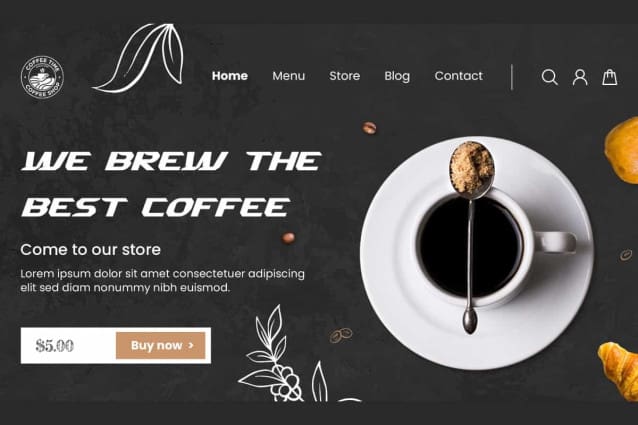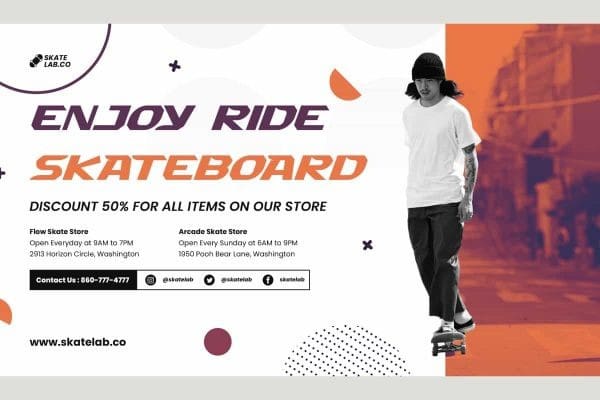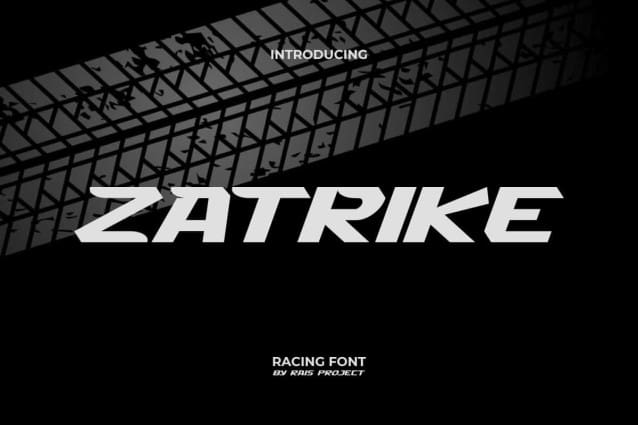
Zatrike Font
Zatrike Font is an impressive cool racing display font with a modern look. This font has bold characters that make it look awesome. It will be good for any designs, such as stationery, advertisement, brand image, marketing material, cover, custom design, invitation, label, menu, poster, product packaging, quotes, website page, and more!
Zatrike Font includes a full set of ALL CAPS for Uppercase and Lowercase Letters, Numerals, and large range of Punctuation. This cool font with a racing vibe will be suitable for various industries, such as fashion, game, movie, accessories, café, event or festival, printing, publishing, sports, etc.